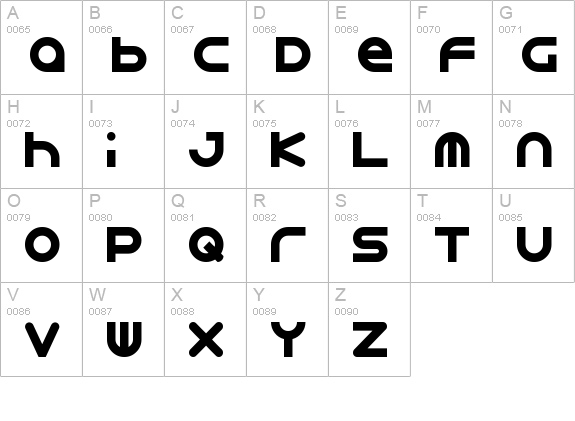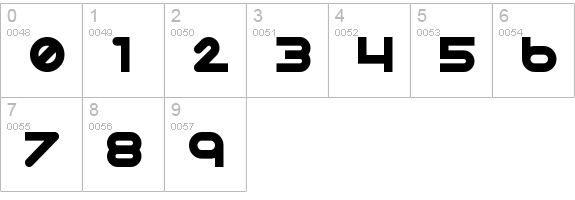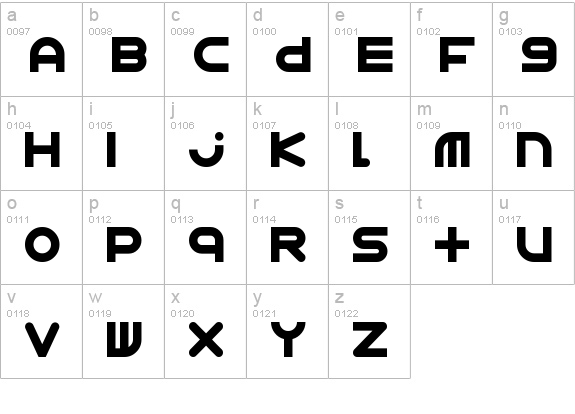
Astro 867 font captures the essence of futuristic elegance with its sleek, modern design and geometric shapes. This font is perfect for projects that require a touch of sophistication and innovation. Whether you're designing a high-tech website, a sci-fi book cover, or a cutting-edge logo, Astro 867 will elevate your work to the next level. The best part? Astro 867 is available for free download at FontsMarket.com. Get your hands on this stunning font today and let your creativity soar to new heights. With its clean lines and dynamic energy, Astro 867 is sure to make a bold statement in any design project. Don't miss out on this fantastic opportunity to enhance your creative endeavors with a font that is both stylish and versatile. Download Astro 867 now and watch your designs come to life!